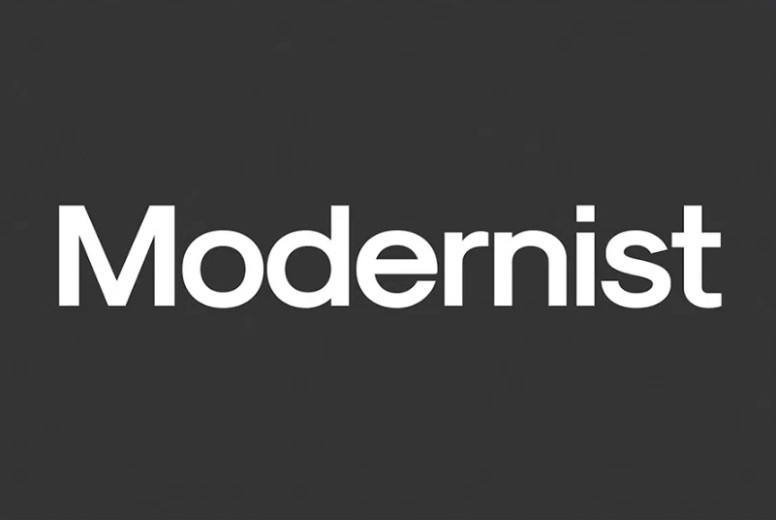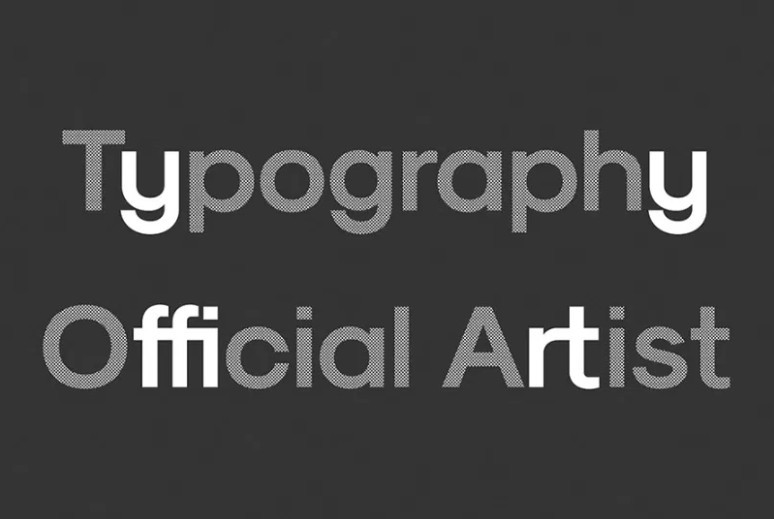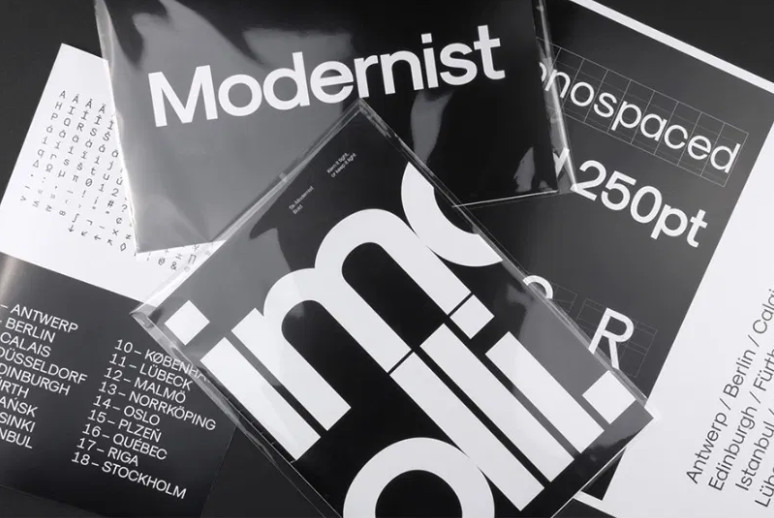
Modernist Font Free
Say hello to Modernist. A minimalist and clean typeface which eschews complicated forms. The aim of the typeface was to create an amalgamation of a modern Grotesk, like Helvetica, with a simpler geometric style, like Avant Garde. Modernist has been designed specifically for the digital age, each letter form being optically adjusted using a mathematical system rather than the traditional typographers eye.
The font is the first to be released by Sean Kane Design and is currently available in Light, Regular, Bold and Monospaced weights. Features include multi language support, Extended Latin and Vietnamese character sets, ligatures and stylistic alternatives.